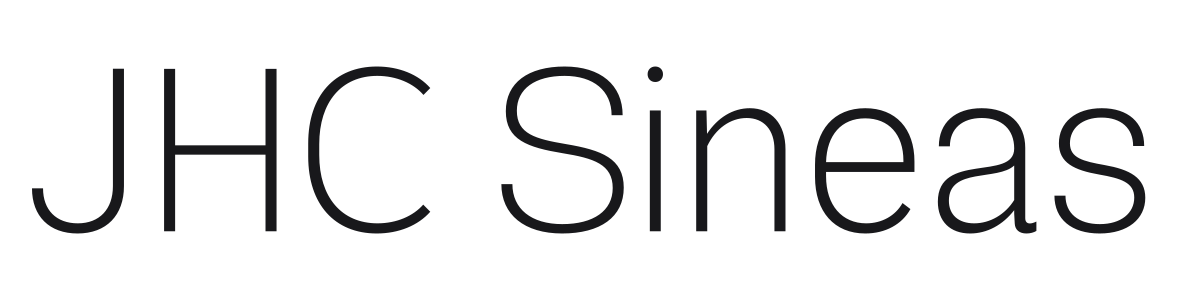
JHC Sineas
JHC Sineas is a contemporary geometric sans-serif with an extralight weight that gives it a distinctly airy, refined presence. The characters are built on smooth circular geometry with open apertures and no decorative flourishes, keeping the design neutral and quietly elegant. It works well in branding, fashion editorial, and any context where whitespace and restraint carry the visual weight.